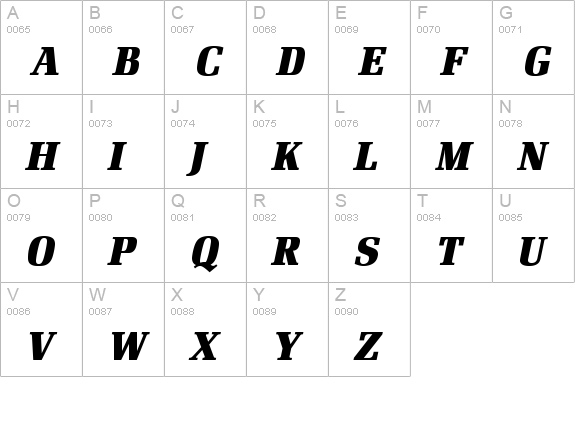
Renault Bold Italic is a strong, high-contrast, italic variant in the Renault typeface family \xE2\x80\x94 well suited to headlines, attention-grabbing titles, and strong calls-to-action.
Renault Bold Italic font is a stunning and eye-catching typeface that combines the elegance of bold letterforms with a touch of modernity. It features a perfect balance between thick and thin strokes, creating a captivating visual appeal that demands attention. This font is perfect for making a bold statement in your designs, whether it's for a logo, poster, or any other creative project. Its unique italic style adds a sense of dynamism and movement, making it the perfect choice for projects that require a touch of sophistication and playfulness. The Renault Bold Italic font is incredibly versatile and can be used in a variety of contexts. It works beautifully in both digital and print designs, ensuring that your message stands out in any medium. With its clean and legible letterforms, it guarantees readability even at smaller sizes, making it ideal for both headlines and body text. The best part? The Renault Bold Italic font is available for free download at FontsMarket.com. This means that you can easily access and use this stunning font in your designs without any hassle. Whether you're a professional designer or a hobbyist, this font is a valuable addition to your typography collection. So why wait? Download the Renault Bold Italic font today and unleash your creativity with its bold and captivating letterforms. Make a statement and leave a lasting impression with this freely available font that is sure to elevate your designs to new heights.